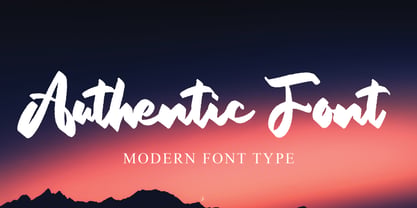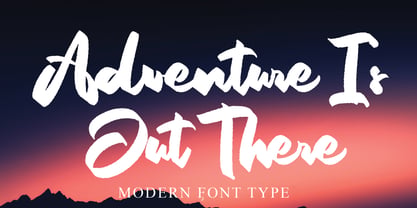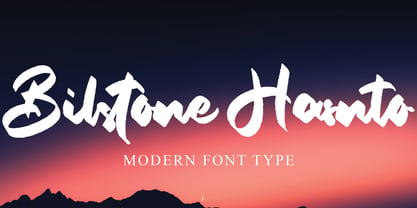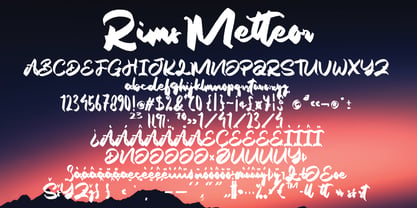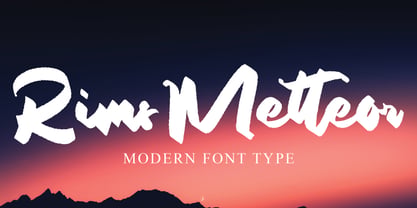
Rims Metteor
The Rims Metteor Font Family was designed by Dhoni Trihatmoko and published by Ayska. Rims Metteor contains 1 styles. More about this family
Step into the captivating universe of Rims Metteor, a font that masterfully syncs contemporary finesse with the true essence of handwritten elements. The artfully devised Rims Metteor exudes a sense of cultivated sophistication and style, instantly elevating your digital oeuvre. It's the perfect choice to captivate blog readers, bestow unique allure to your digital diary, introduce a splash of vibrancy in your invitations, and voice your genuine feelings using personalized cards. Rims Metteor is an adaptable font that unifies the vintage charm of scrapbooks with a contemporary flair ideal for interior design, endowing all digital platforms with its artistic appeal. Deep-seated in authenticity, Rims Metteor triggers your creativity resulting in remarkable impacts. Embrace the versatility of Rims Metteor, channel its subtle power, and witness your creative visions materialize into distinct masterpieces.